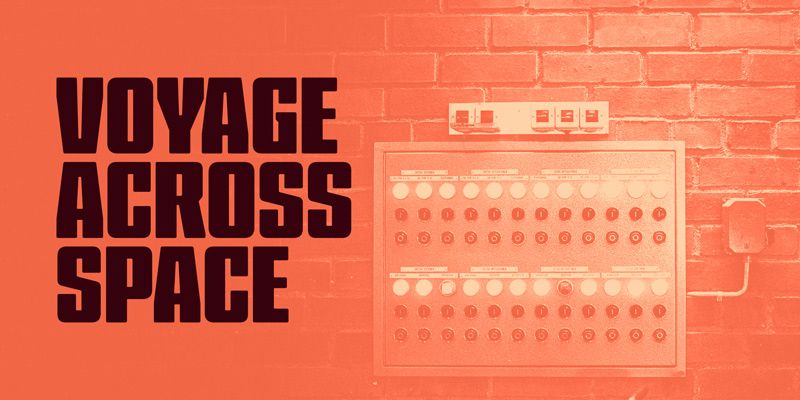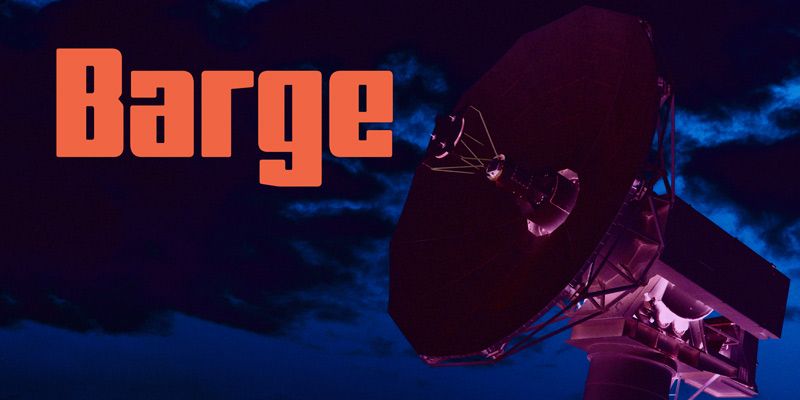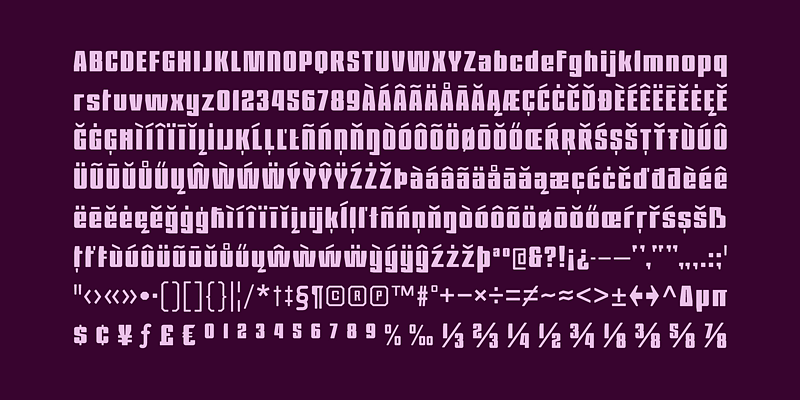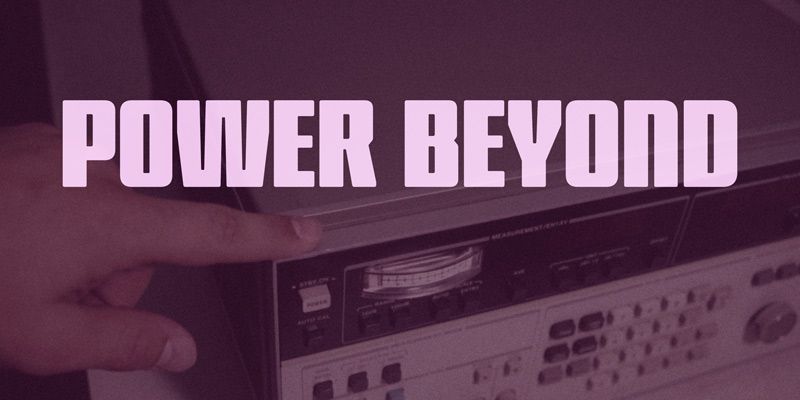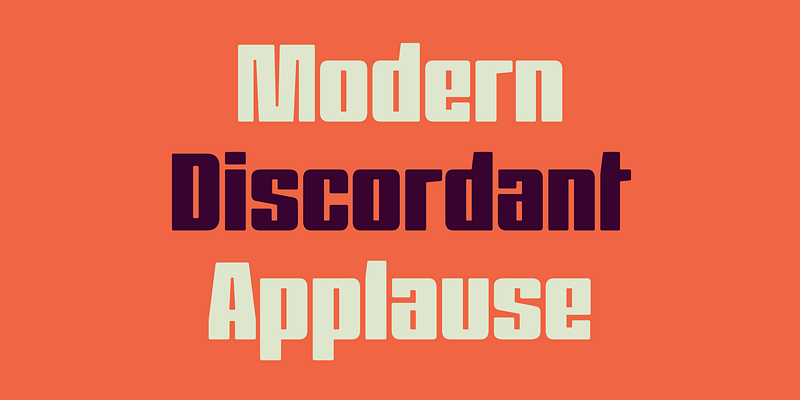
Barge is a compact, heavy display typeface with the presence of a machine part. Broad strokes, squared forms, and softened chamfers give its dense shapes a finished industrial feel without leaning on a specific retro style. The narrow proportions let a long product name occupy a tight surface while retaining the force of a display face. It is especially useful on equipment housings, control panels, molded cases, and cartons, where the lettering can feel integrated with the object rather than applied as an afterthought. Try it for tool names, model numbers, robotics projects, or sports equipment with a strong engineered identity. Barge’s mass also holds up on trade-show graphics and manual covers.